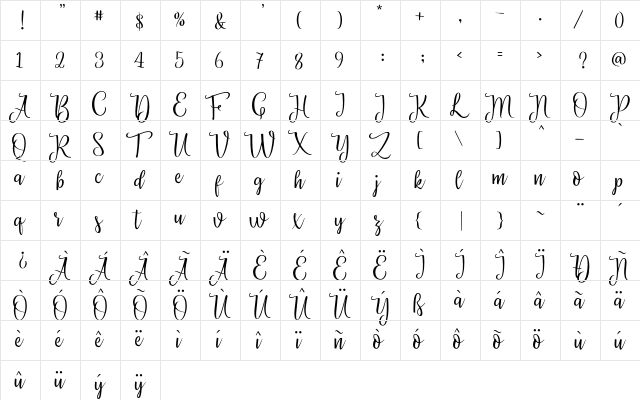
Priscilla Script Regular
| Foundry | ianmikraz |
| Designer | ianmikraz |
Design Context for Priscilla Script Typeface
Priscilla Script flows with the natural rhythm of handwritten lettering, making it ideal for designs that call for warmth and personal expression.
Font Pairing: Combine Priscilla Script with a simple geometric sans for maximum contrast — the tension between flowing curves and clean structure is a classic typographic pairing.
Pro Tip: Use Priscilla Script for short runs of text — names, titles, or taglines. Extended body copy in script faces tires the eye quickly.